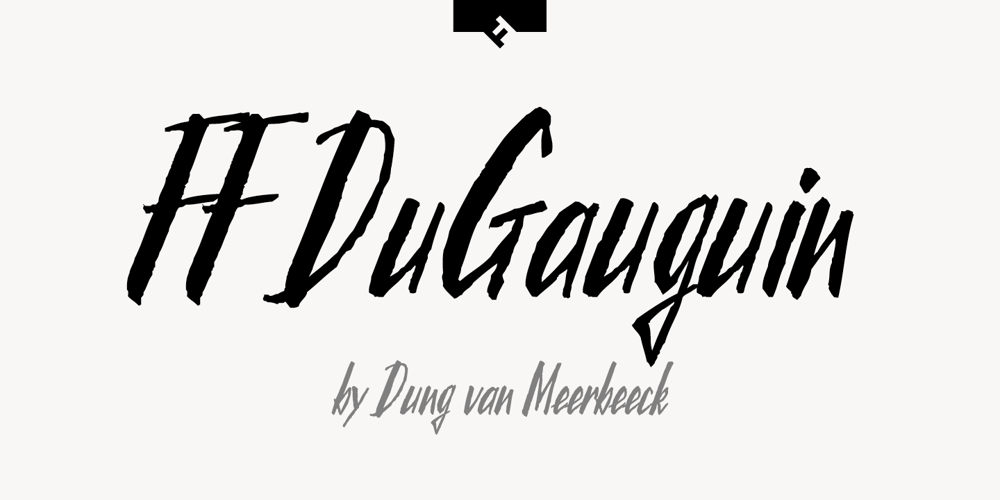
FF DuGauguin
FF DuGauguin font
FF DuGauguin Font Family was designed by Dung van Meerbeeck and published by FontFont. FF DuGauguin contains 1 styles and family package options. Belgian type designer Dung van Meerbeeck created this script FontFont in 1992. The font is ideally suited for festive occasions, film and tv as well as poster and billboards. FF DuGauguin provides advanced typographical support with features such as ligatures. It comes with proportional lining figures.